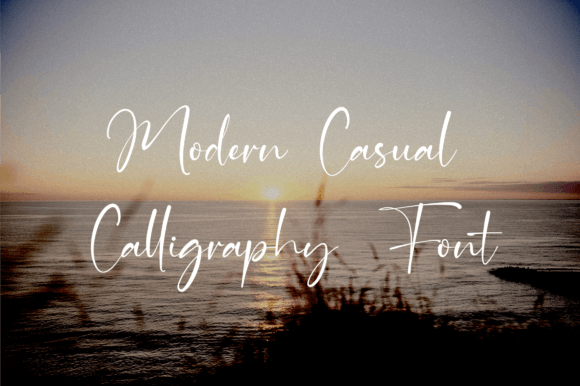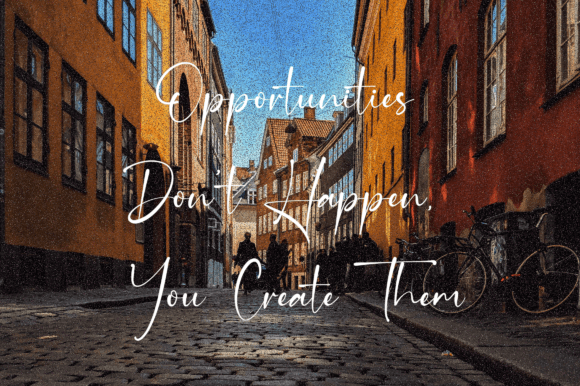
Introducing Denmark Citty Font: The Perfect Addition to Your Design Projects
Are you a designer or crafter looking for a unique and eye-catching font to elevate your creative projects? Look no further than Denmark Citty Font, a modern, lovely, and casual handwritten font that’s perfect for a wide range of design applications. In this article, we’ll take a closer look at Denmark Citty Font, its features, and how it can help take your designs to the next level.
What is Denmark Citty Font?
Denmark Citty Font is a beautifully crafted handwritten font that’s designed to add a touch of personality and whimsy to your designs. With its modern and casual feel, this font is perfect for designers and crafters who want to create unique and eye-catching projects. Whether you’re working on a logo, branding project, social media graphics, or any other type of design, Denmark Citty Font is sure to make your projects stand out.
Key Features of Denmark Citty Font
So, what makes Denmark Citty Font so special? Here are just a few of its key features:
- Modern and Lovely Design: Denmark Citty Font has a fresh and modern design that’s perfect for designers who want to create contemporary and stylish projects.
- Casual Handwritten Feel: This font has a casual, handwritten feel that’s perfect for creating friendly and approachable designs.
- Highly Versatile: Denmark Citty Font can be used for a wide range of design applications, from logos and branding to social media graphics and more.
- Easily Readable: Despite its casual feel, Denmark Citty Font is highly readable, even at smaller sizes.
Design Ideas Using Denmark Citty Font
Denmark Citty Font is an incredibly versatile font that can be used in a wide range of design projects. Here are just a few ideas to get you started:
- Logo Design: Use Denmark Citty Font to create a unique and eye-catching logo for your business or brand.
- Social Media Graphics: Add Denmark Citty Font to your social media graphics, such as Facebook posts, Instagram stories, and Twitter headers.
- Branding Materials: Use Denmark Citty Font in your branding materials, such as business cards, brochures, and flyers.
- Web Design: Incorporate Denmark Citty Font into your web design projects, such as website headers, navigation menus, and more.
Tips for Getting the Most Out of Denmark Citty Font
Here are just a few tips for getting the most out of Denmark Citty Font:
- Experiment with Different Sizes: Denmark Citty Font looks great at a wide range of sizes, so don’t be afraid to experiment and find the perfect size for your design.
- Play with Color: Denmark Citty Font looks great in a variety of colors, so try experimenting with different colors to add some extra personality to your design.
- Combine with Other Fonts: Denmark Citty Font pairs well with a wide range of other fonts, so try combining it with other fonts to create a unique and eye-catching design.
Denmark Citty Font is a modern, lovely, and casual handwritten font that’s perfect for designers and crafters who want to add a touch of personality and whimsy to their design projects. With its highly versatile design and easily readable feel, Denmark Citty Font is sure to become a go-to font in your design library. So why wait? Download Denmark Citty Font today and start creating outstanding designs that will leave a lasting impression!